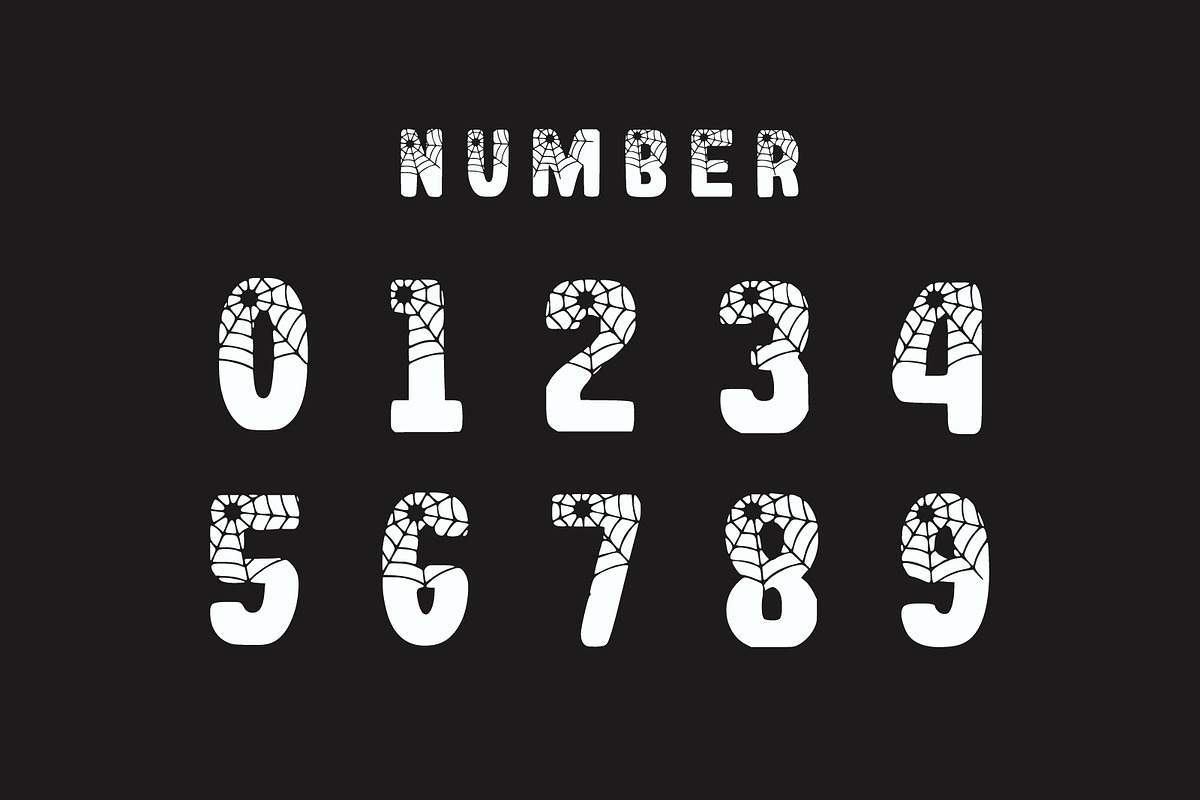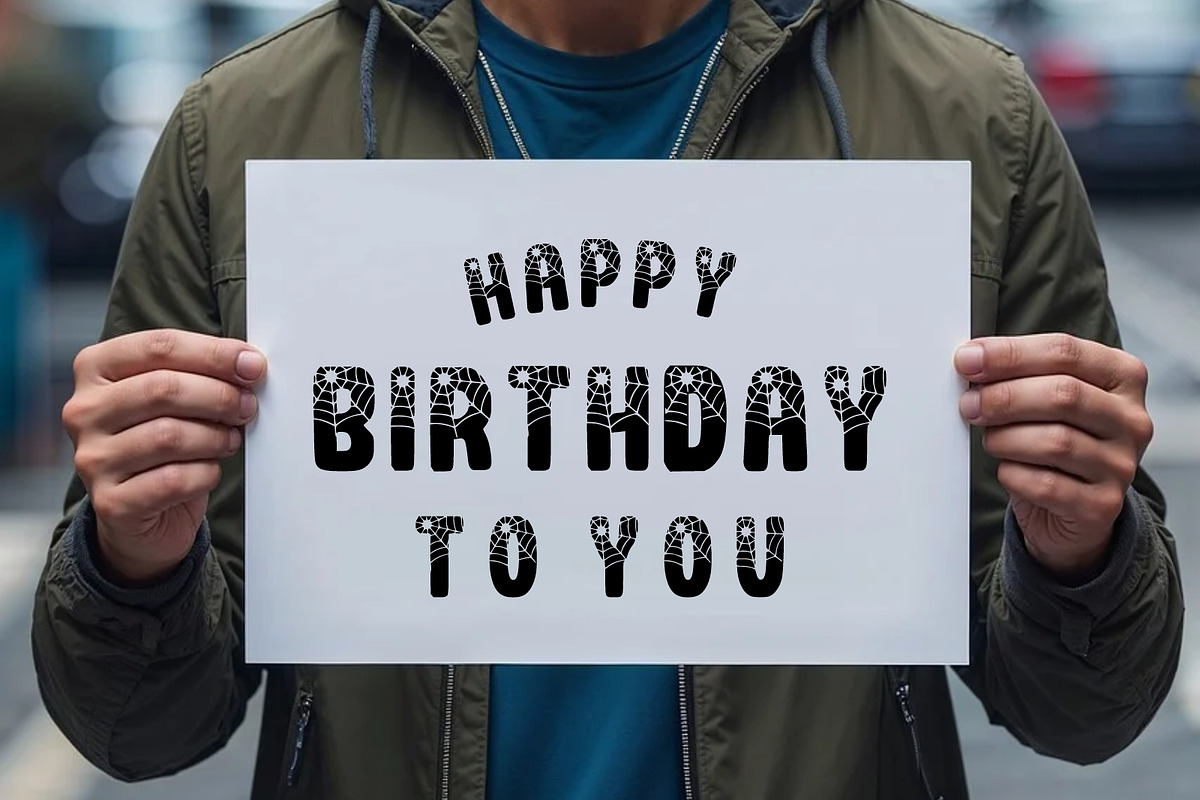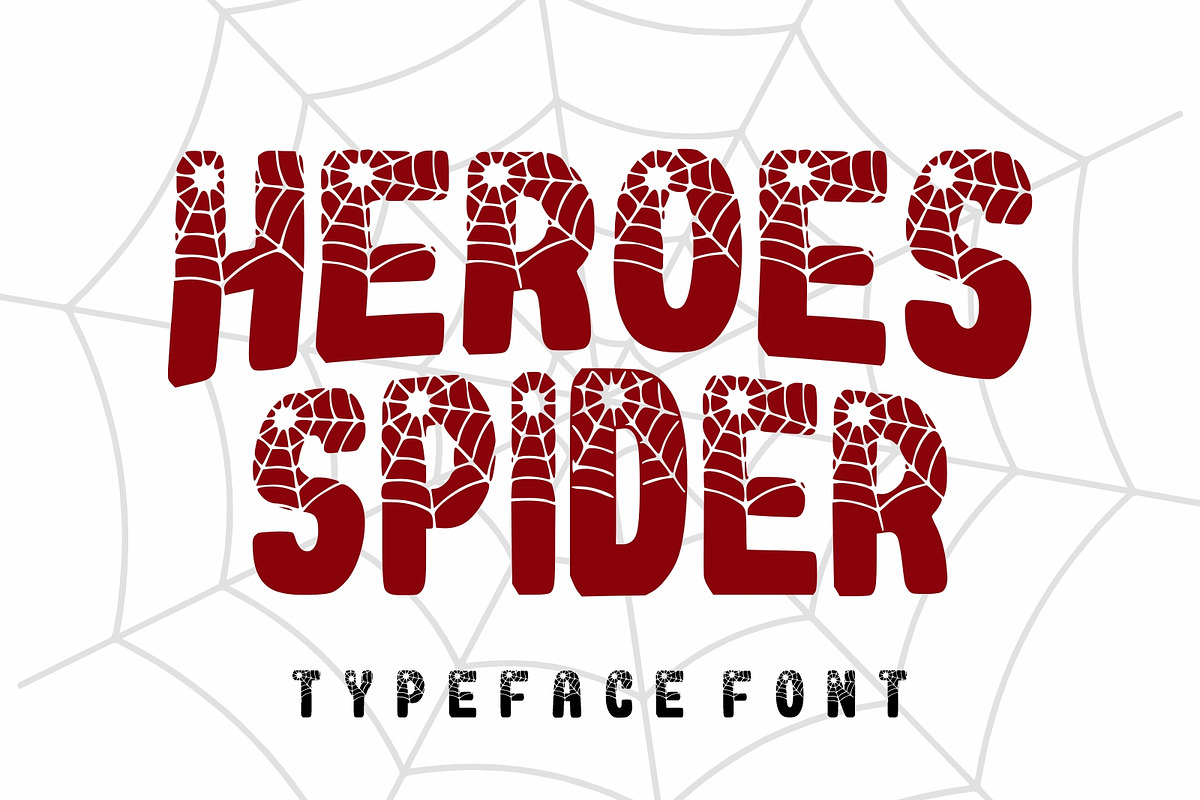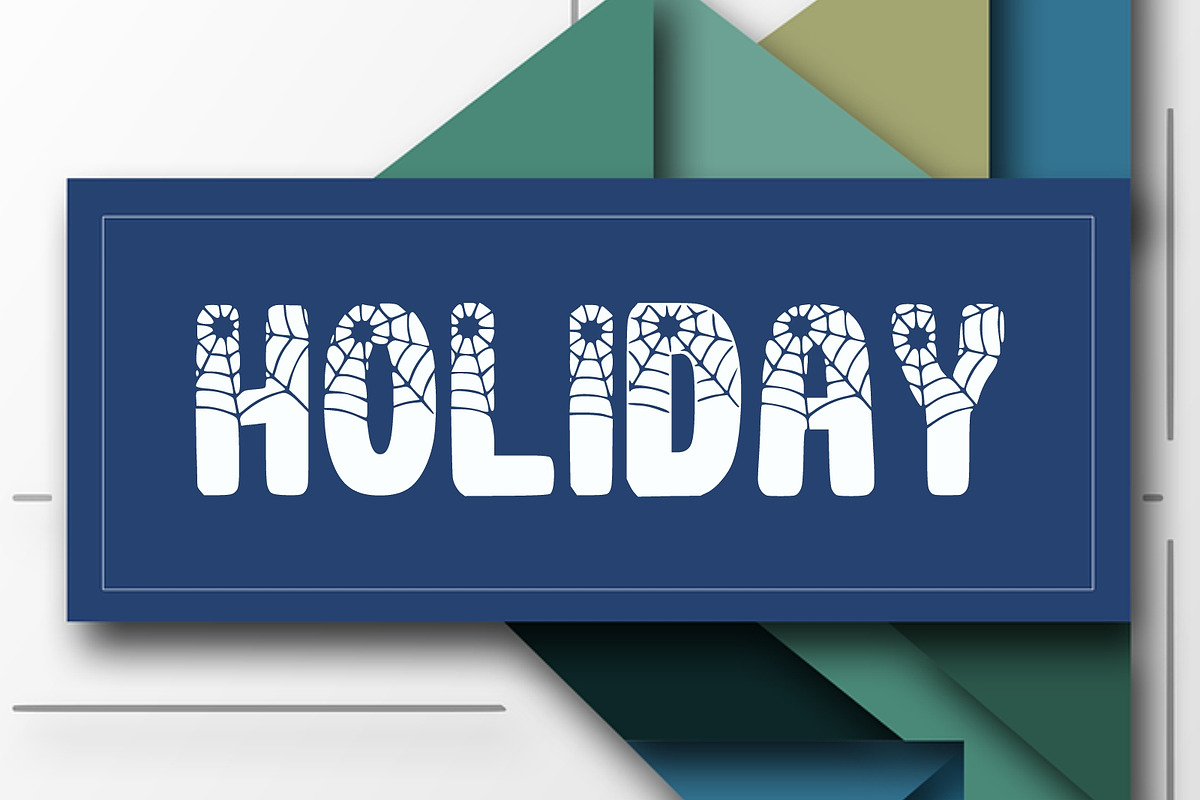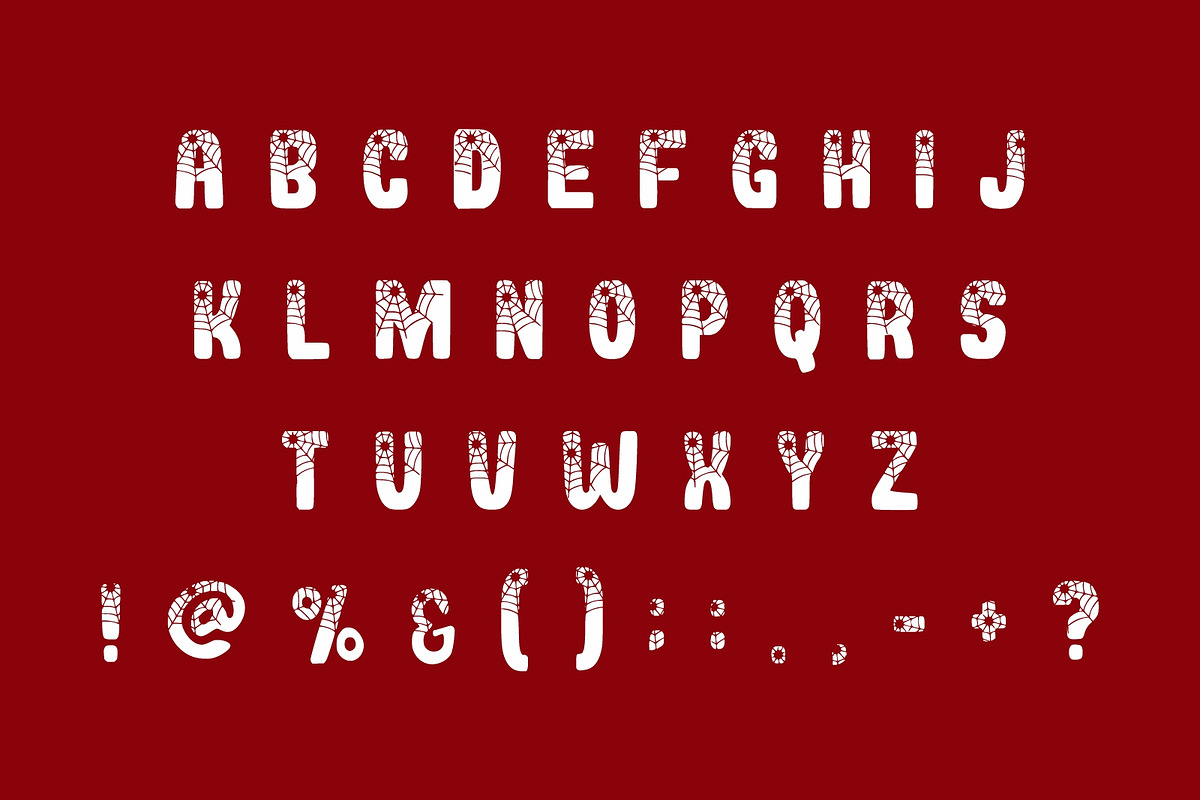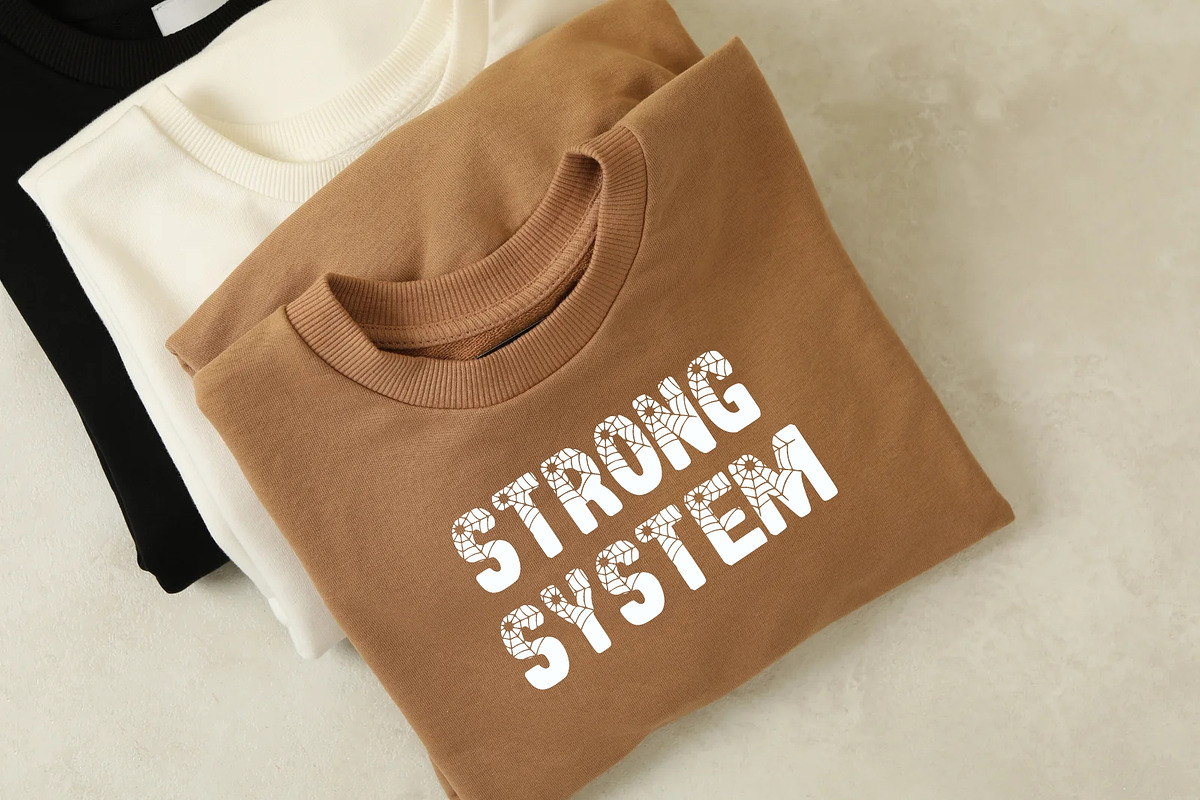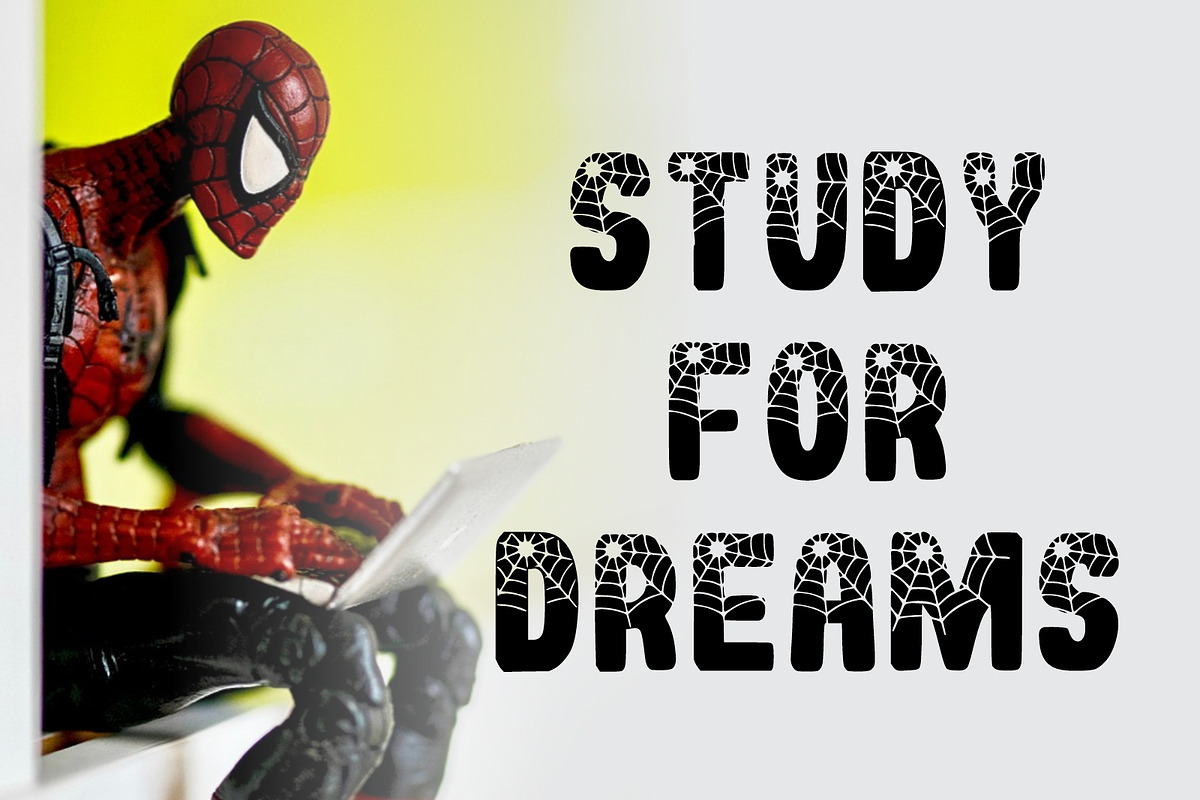
Heroes Spider
Heroes Spider is a bold and quirky display font. Its friendly feel makes this font incredibly versatile, fitting a wide range of contexts. Add it to your creative ideas and notice how it makes them stand out!